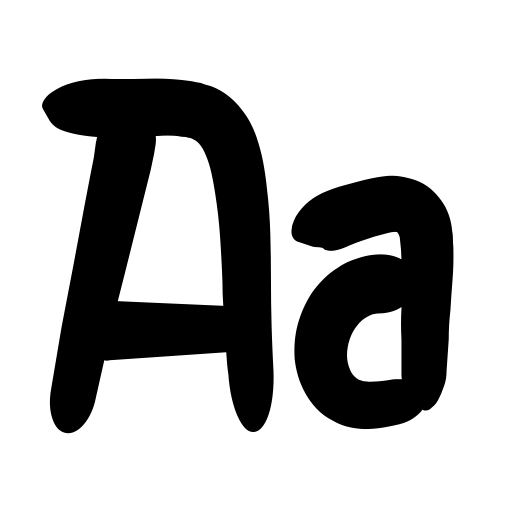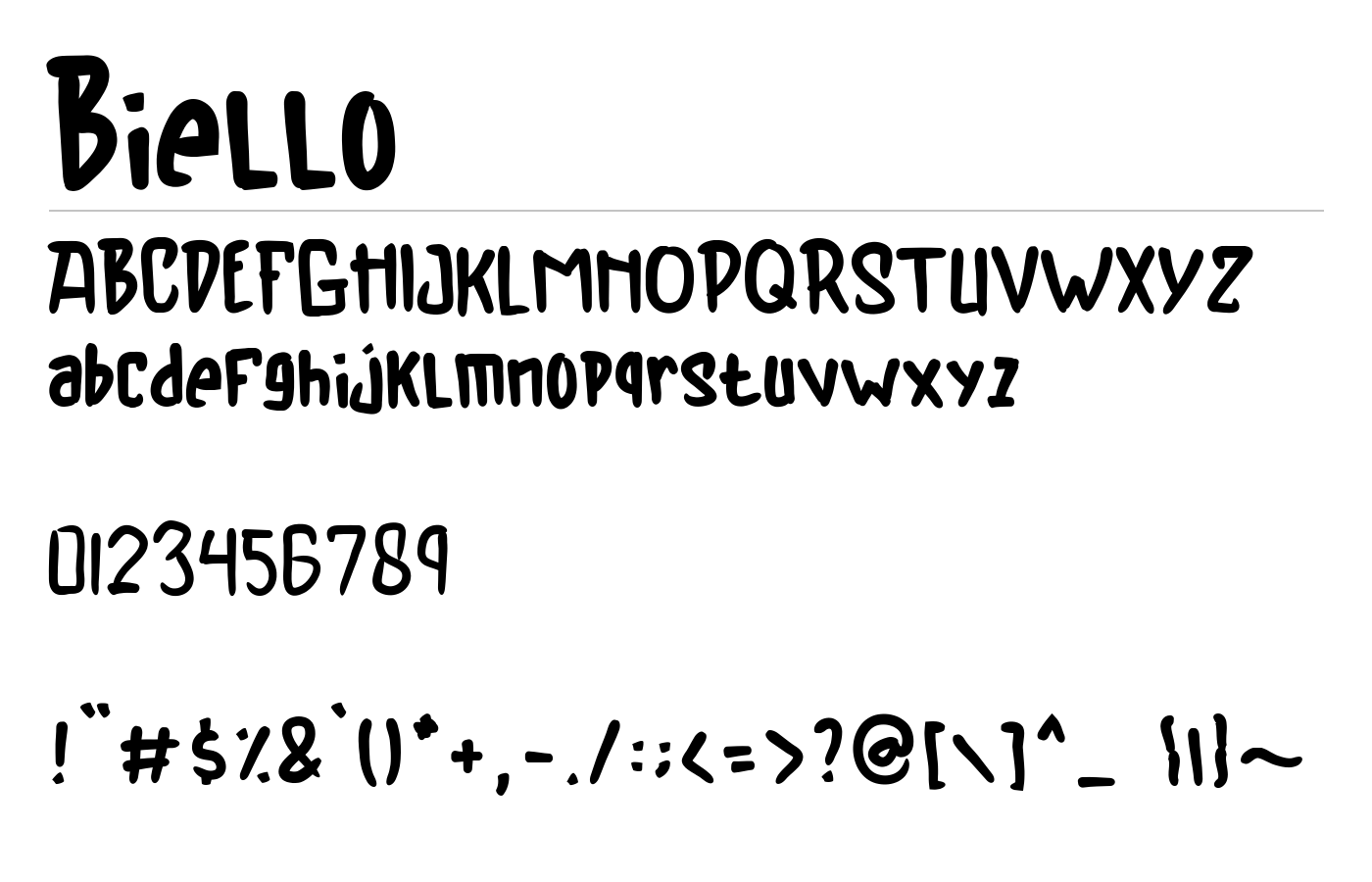
Biello is a playful, hand-drawn sans serif font characterized by its upright, irregular letterforms and a casual, friendly feel. Its uneven strokes and quirky shapes give it an informal and approachable personality, making it ideal for projects like children’s books, creative branding, or fun posters where a lively and personal touch is desired. This font works best in headlines and display settings to add a unique, whimsical flair.
Biello Font